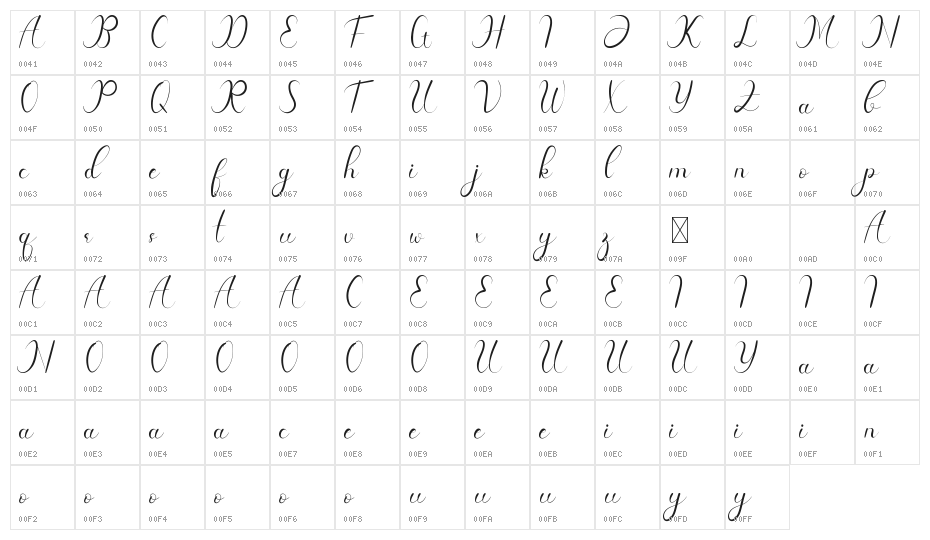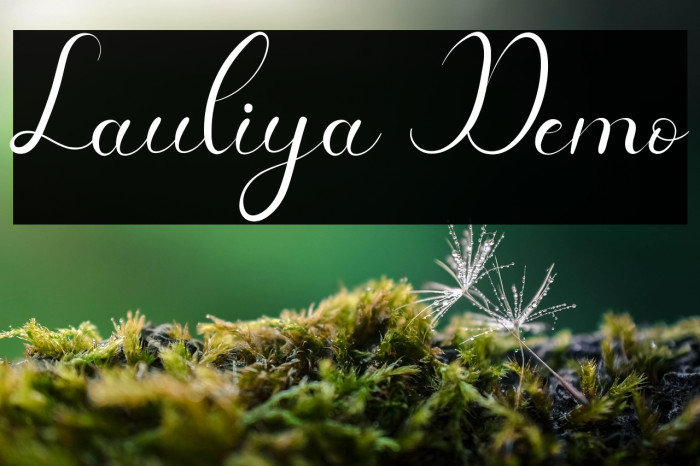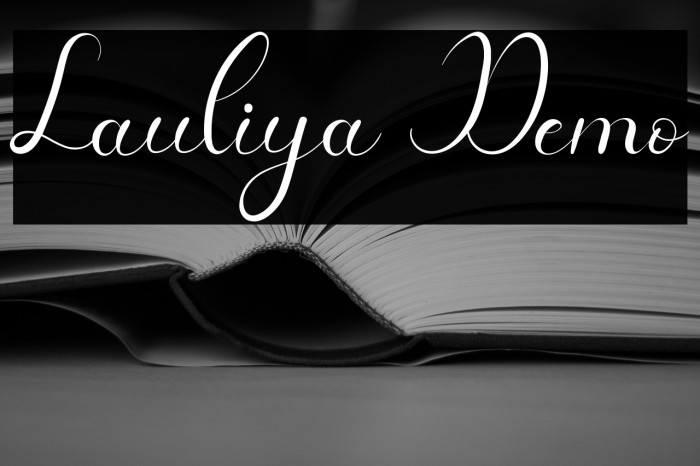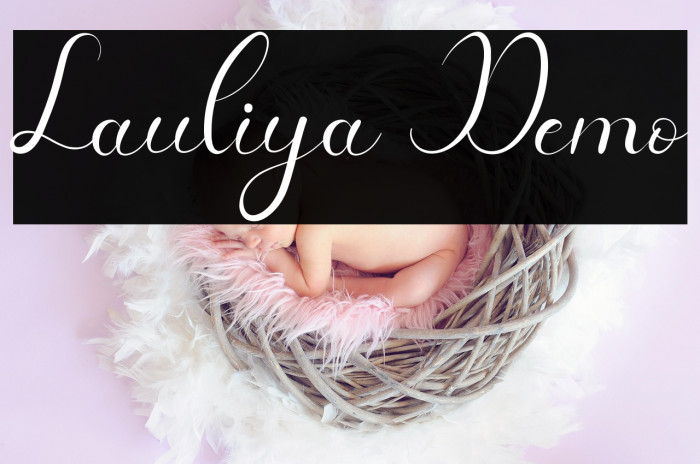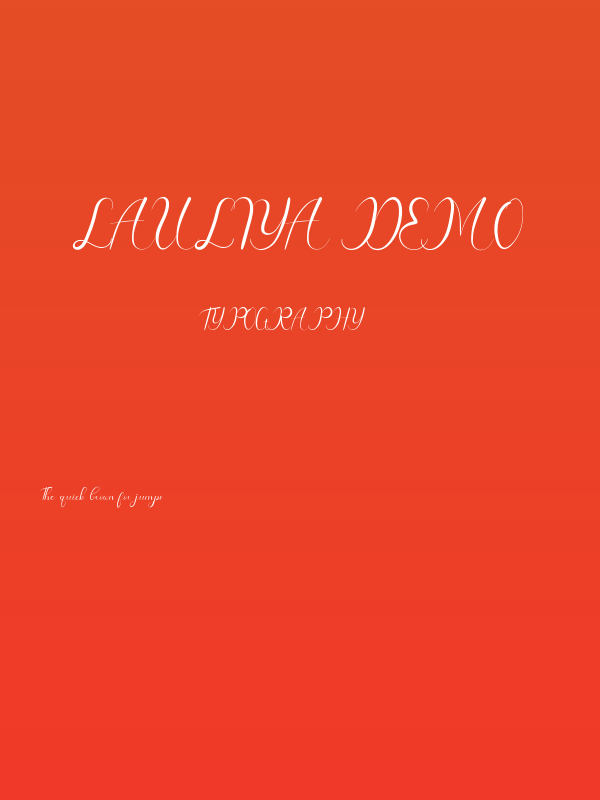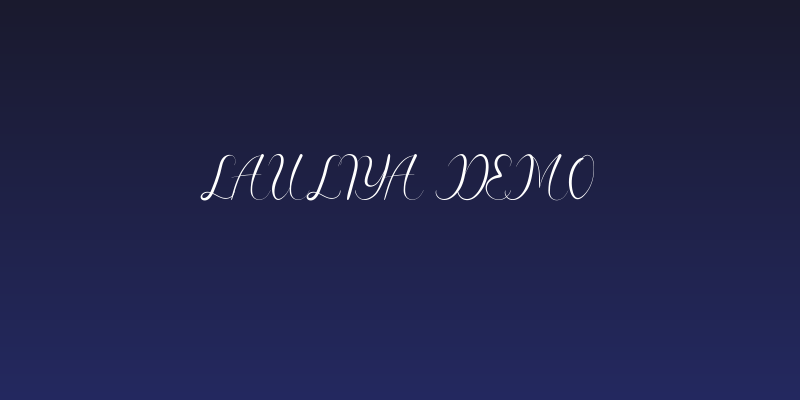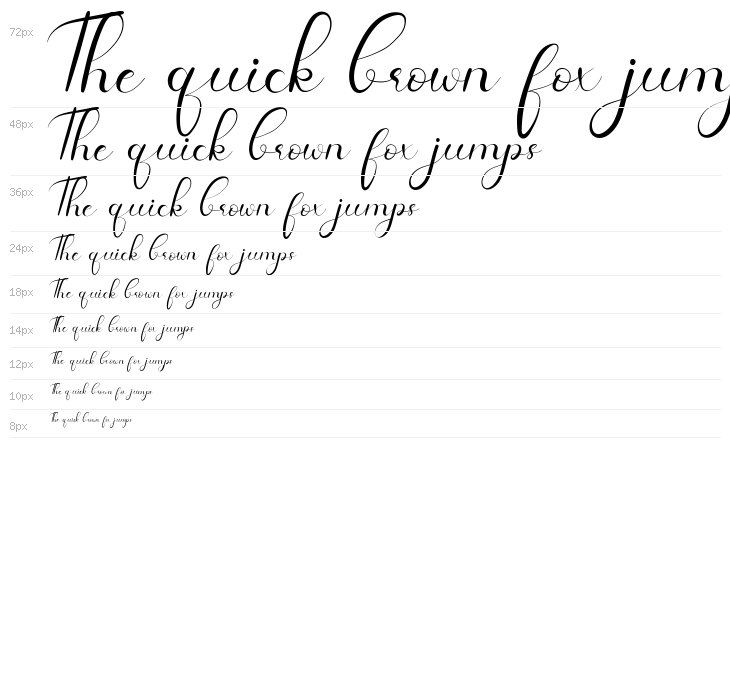
Lauliya Demo Font
Lauliya Demo Description
This font features an elegant and flowing script style, characterized by its graceful curves and loops. The uppercase letters are tall and slender, with a sophisticated flair that adds a touch of refinement. The lowercase letters maintain a consistent flow, with smooth connections that enhance readability while preserving the artistic nature of the script. The font exhibits a high contrast between thick and thin strokes, contributing to its dynamic and lively appearance. It is well-suited for projects that require a touch of elegance and sophistication.
| Use Case | Headlines, Invitations, Branding |
| Proposed Projects | Ideal for wedding invitations, elegant branding, high-end product packaging, and decorative headings. |